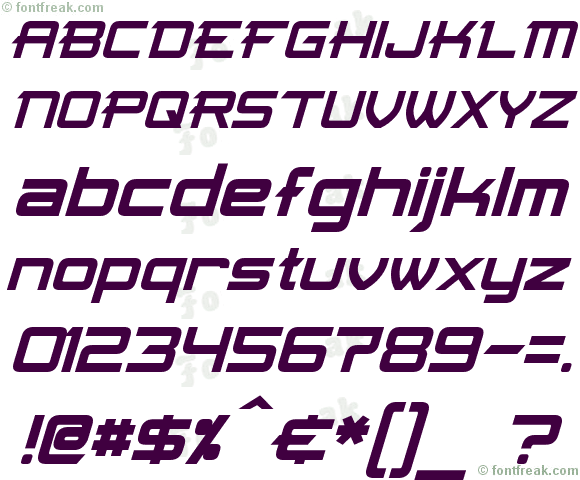
Skir Oblique
About Skir Oblique
Skir Oblique, designed by Neale Davidson in 2011, is a striking display font that falls within the sans-serif category. This font is characterized by its strong, angular strokes and a distinctive oblique slant, which gives it a dynamic and modern appearance. The stroke weight is bold yet balanced, providing a sense of solidity while maintaining an air of sophistication. The contrast between thick and thin lines is minimal, allowing for clear legibility even at larger sizes. The spacing is well-considered, ensuring that each letter has enough room to breathe while remaining cohesive as a word.
This font is incredibly versatile, making it suitable for a variety of design applications. It works exceptionally well for wedding invitations where a contemporary yet elegant touch is desired. Additionally, Skir Oblique is a strong choice for movie posters, where its bold presence can capture the viewer's attention. Restaurant menus can benefit from this font's modern flair, helping to create a memorable dining experience. Furthermore, small business owners looking to create eye-catching branding materials will find this font to be an excellent asset.
Targeted towards graphic designers, content creators, and small business owners, Skir Oblique offers a unique blend of style and functionality. Its distinctive features allow it to stand out in a crowded market, making it a go-to choice for those looking to make a statement.
In summary, Skir Oblique is a font that captures attention and embodies a modern aesthetic. Its free availability as a freeware font allows designers and creators to access this unique typeface with ease. For those interested, the Skir Oblique font free download is a fantastic opportunity to incorporate this striking design into your projects.